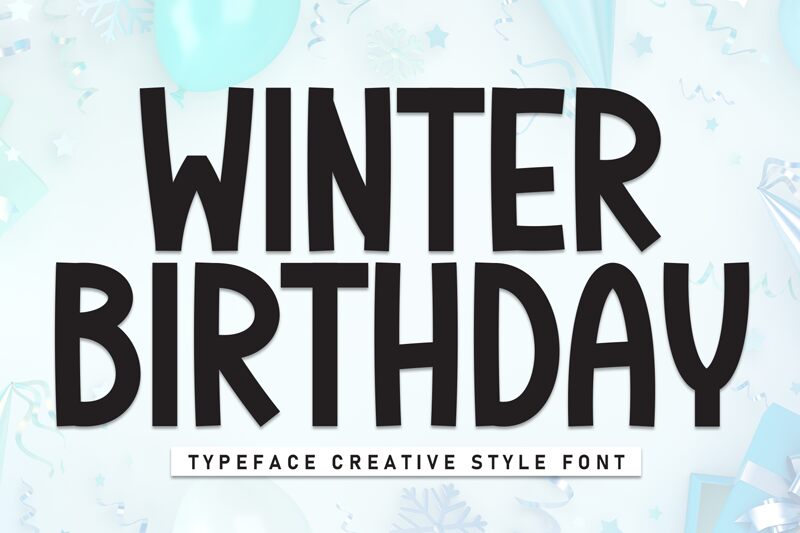
Winter Birthday font by Scratchones is a free font full of whimsy and charm. It brings a festive, animated feel to designs, making it perfect for invitations and playful projects. Combining bold presence with a modern touch, Winter Birthday is well-suited for casual themes that call for an approachable, lively aesthetic.
From children’s book covers to party announcements, this font is a versatile choice. Use it in greeting cards, posters, event brochures, social media graphics, or contemporary brand logos. Its expressive charm can easily amplify the fun and festive elements of your project.
The latest stylish letters are ideal for wall displays, wedding invitations, logos for social media posts, advertisements, product packaging, product designs, labels, photography, watermarks, invitations, stationery, and any project requiring tasteful handwriting.